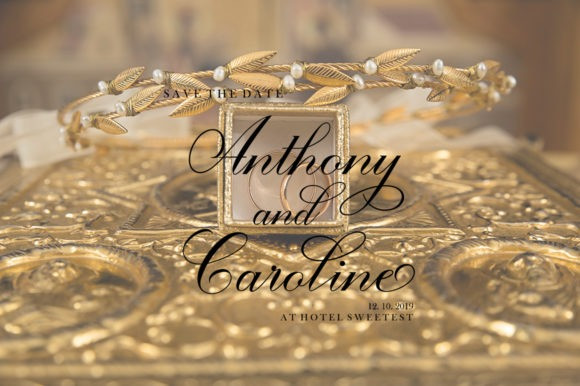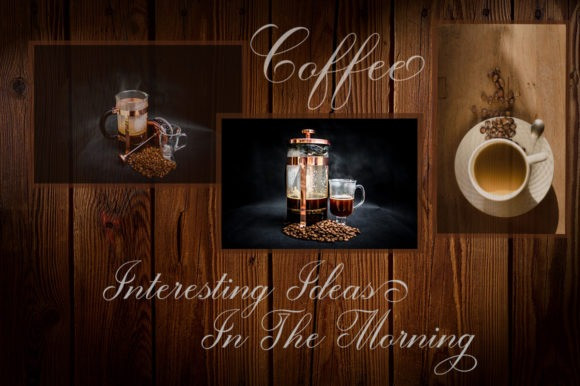
Barbies Script Font
The Barbies Script Font is a classic calligraphy font with an italic style. It includes amazing swashes that will give your design an elegant, sweet, and perfect look.
It’s suitable for logos, branding projects, design of household appliances, product packaging, mugs, quotes, posters, shopping bags, logos, t-shirts, book covers, business cards, invitation cards, greeting cards, and all your other beautiful projects.